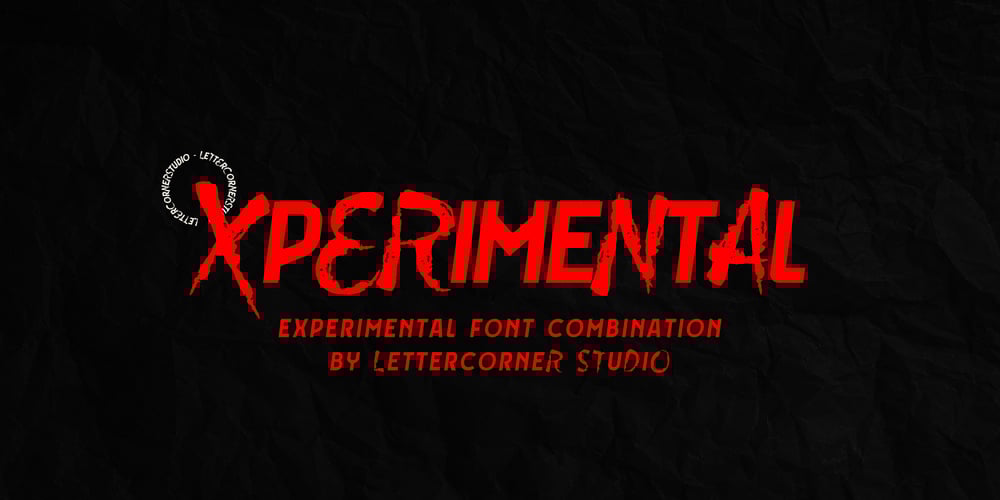
Xperimetal Font Family was designed by Muhammad Afif Ersya and published by Mevstory Studio. Xperimetal contains 1 styles and family package options. Introducing XpEriMeTaL, an experimental display typeface combining a simple and clean sans serif typeface with brush typeface. Consists of 1 font file with copperplate script typeface on the uppercase and sans serif on the lowercase. The combination of different typefaces looks modern and fashionable but also gives a nostalgic retro vibes at the same time.–Uppercase